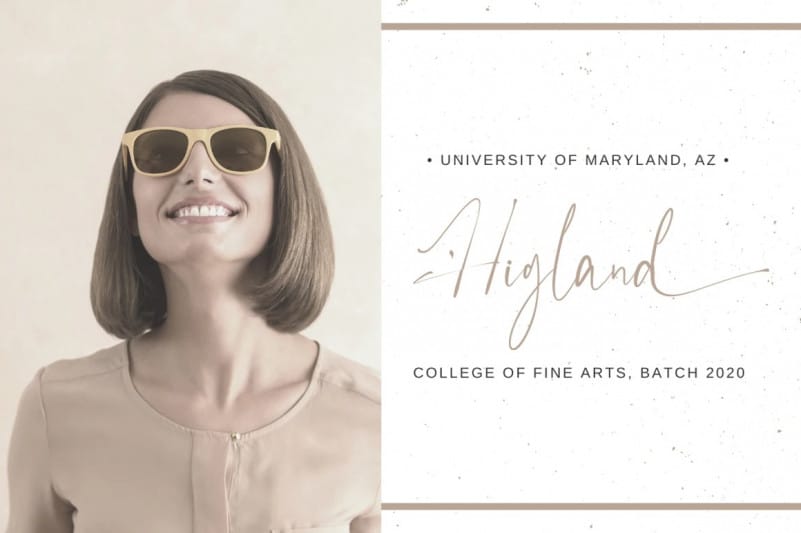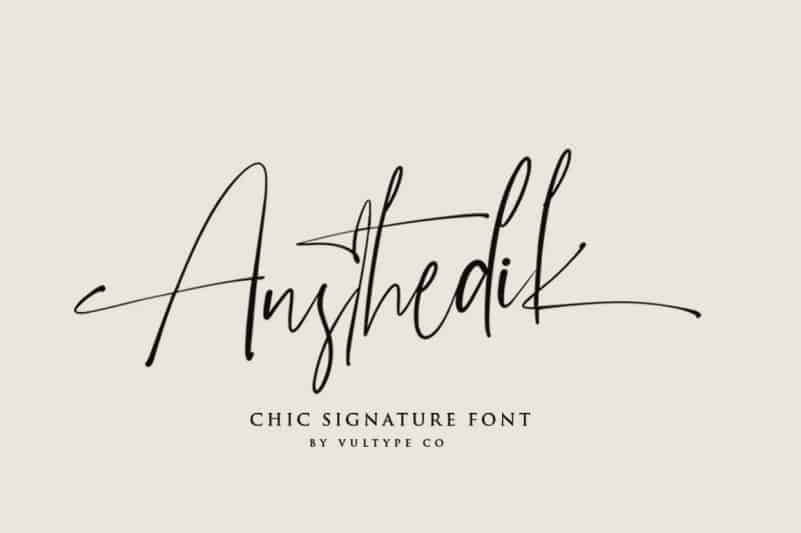
Austhedik Script Font
Austhedik Script Font is a delicate and flowing handwritten font package by Vultype Co  with tropical summer vibes also beautiful ligature and alternate font.
inspired by a luxury fashion. Contemporary handwriting fonts with ligatures and alternative styles ready to add unique look and bloom on your design
It easily cooperating together For Magazine, Movies, or Book Titles. For Photography, Wedding Invitation, Restaurant Menu or T-shirt Design. For Flyers, Banner Ads, web and printing. From Food and Fashion to a Cosmetics product